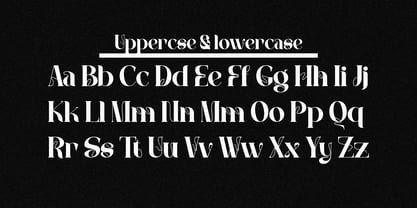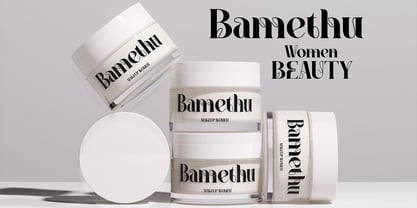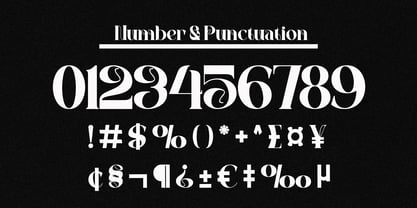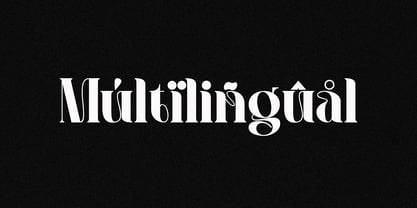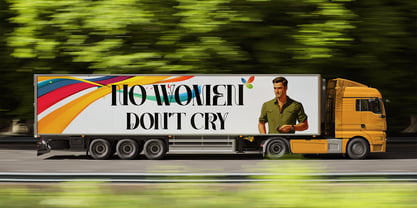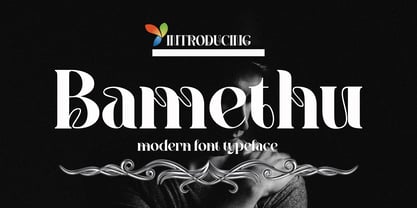
Bamethu
by Canden Meutuah
The Bamethu Font Family was designed by Canden Meutuah and published by Canden Meutuah. Bamethu contains 1 styles. More about this family
Bamethu is a bold and stylish condensed serif family font, blending retro aesthetics with modern minimalism. Designed with uppercase and lowercase characters, Lavache features strict proportions, clean lines, and striking curves, giving your designs a bold personality.
This font is perfect for posters, logo designs, editorial titles, album covers, fashion branding, and display titles, attracting attention with a distinctive touch.